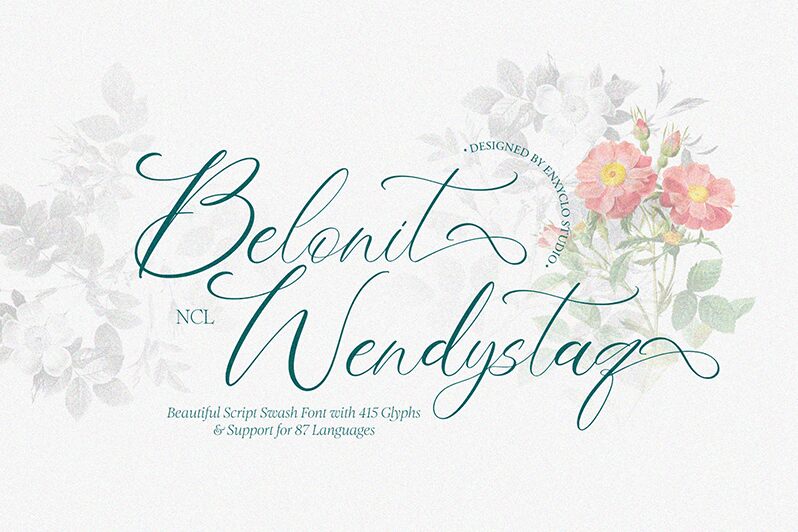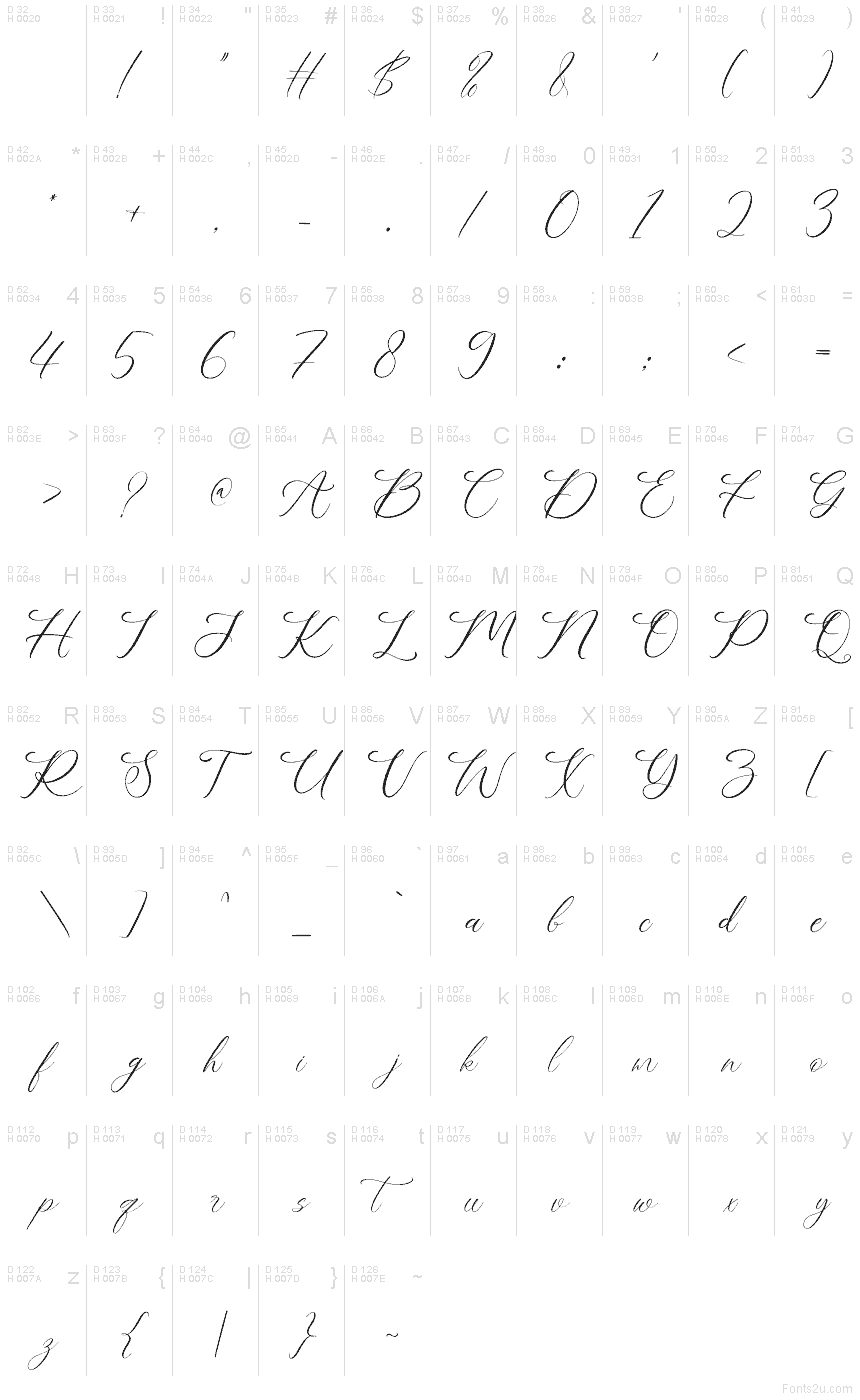
NCL Belonit Wendystaq Demo
NCL Belonit Wendystaq font by Enxyclo Studio is a free calligraphy typeface. Its airy loops and feather‑thin hairlines sweep into fuller pressure strokes, giving the text a breezy, hand‑inked lilt. The rhythm feels light and continuous, with graceful swashes that read as flourish rather than fuss, so headlines look romantic without turning sugary.
Using NCL Belonit Wendystaq, you’ll shine on wedding suites, boutique packaging, event menus, photographer watermarks, beauty branding, quote graphics, and elegant social posts. The spacing keeps words legible even with generous curves, so you can size it up for titles and keep short lines for subheads. Pair this free font with a quiet geometric sans for balance and let Wendystaq carry the sparkle.